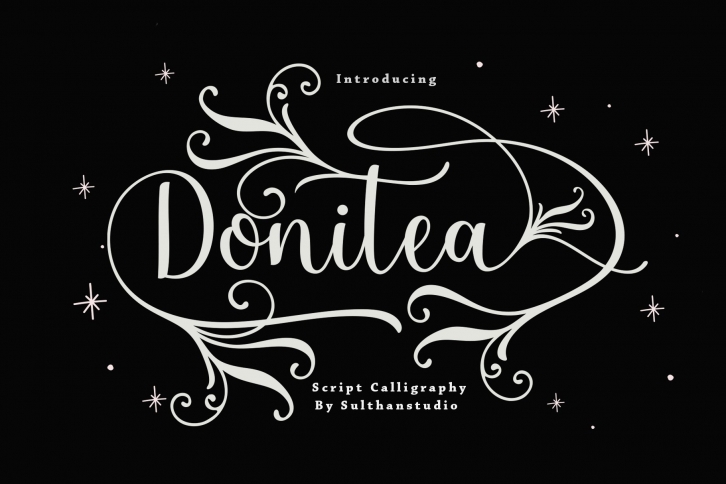
Donitea Scipt is a gorgeous font that was realeased on July 11, 2021. The font can be used in many style contexts and design environments. Perfect for invitations, magazines, websites, logos, and more! It was designed by Sulthan studio and the file size is 6.58 MB. Thanks for checking out this font!